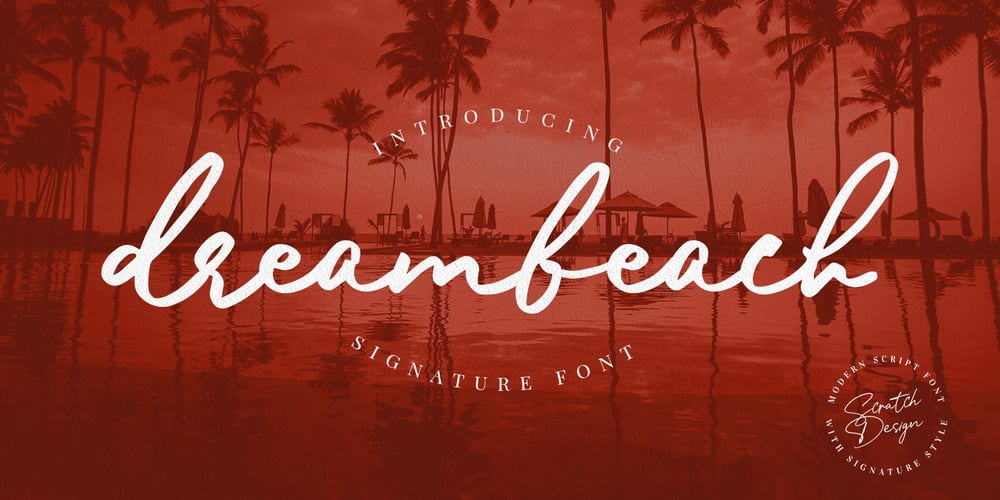
Dreambeach Font Family was designed by Gitayogi Irhandi and published by Scratch Design. Dreambeach contains 1 styles and family package options. Introducing Dreambeach Signature! It’s a modern script font with a signature style. very recommended for you who want to make some designs with natural and authentic signature designs. This font will work for invitation design, wedding design, poster, packaging, book cover title, quote, social media post, etc. Just open your Opentype features while using the script font to use the ligatures and stylistic alternate 1 & 2. As you type, your text will look like a natural signature or handwriting.